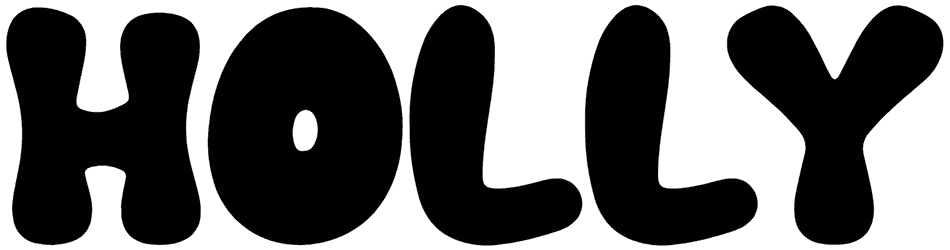
Holly Font
Convey a fun and joyful vibe to your audience with this unique fancy font. This item, with its bulky and soft hand-drawn style, is able to give an appealing mood to your words. As a cartoon font, Holly doesn’t support lowercase letters, but it would be a cute illustration for your happy-themed layouts, from school posters to comics.